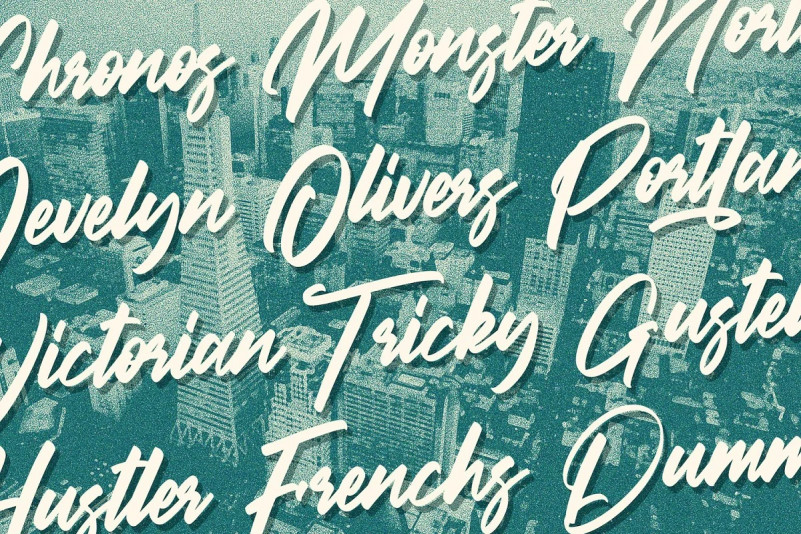
Bestallie Script Font
It’s a gorgeous, bold and retro styled handwritten font, crafted to give your headlines and logotype projects a stylish touch. Add it to your most creative ideas and notice how it makes them come alive!